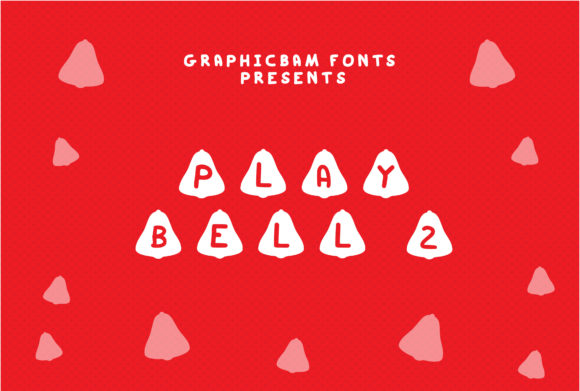
Welcome to the realm of Play Bell 2 Font, where imagination flourishes amidst decorative grandeur! Prepare to be captivated by its cheerful and festive aura, perfect for unleashing your creativity.
Picture invitations that emanate joy, holiday designs that ignite the spirit of celebration, and marketing materials that dance with delight. Let Play Bell 2 Font adorn your storybook covers, imbuing them with a charm that will transport readers to whimsical worlds.
Beyond its aesthetic brilliance, Play Bell 2 Font holds a practical advantage as the ideal companion for paper forms. Its clear and defined characters ensure effortless readability, streamlining your documentation with a touch of elegance.
With Play Bell 2 Font, you're not just downloading a font; you're embracing a vibrant and versatile tool that will ignite your designs and captivate your audience. Let its playful spirit infuse your creations with unforgettable charm and elevate your projects to extraordinary heights!